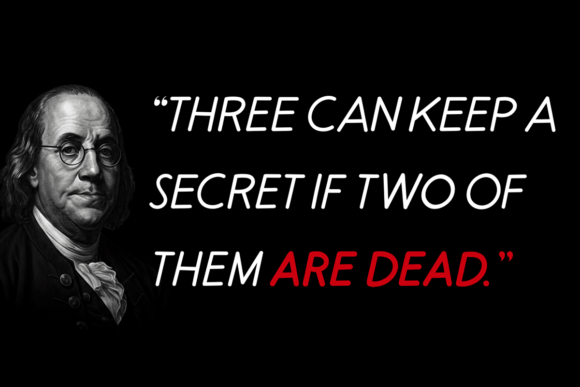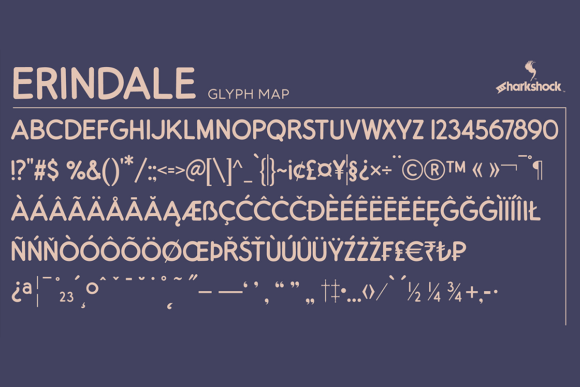
Introduction to Erindale Font
As a designer, there’s nothing quite like the thrill of bringing a creative project to life. It’s that moment when all the elements come together – the perfect balance of color, texture, and typography – that makes your design truly shine. For many of us, finding the right font can be a daunting task, but what if you could tap into a style that’s both nostalgic and timeless?
Enter the Erindale Font, a stunning all caps display family inspired by the advertisements of the 1920s and 30s. With its unique blend of order and humanistic imperfection, this high-quality font is sure to elevate your design project to new heights. Whether you’re working on a family-friendly logo, a comic, or a classic poster, Erindale Font is the perfect design resource to help you achieve your vision.
Key Features of Erindale Font
- Unique, elegant design suitable for various design applications, including logos, branding, and typography.
- Large character set with comprehensive language support, making it a versatile design resource.
- Perfect for designers and artists working on creative projects, offering a unique and stylish design element.
Honest Review: Erindale Font
I recently had the chance to try out the Erindale Font for a creative project, and I was excited to see how it would perform. Overall, I’m impressed with this free download, which is perfect for designers looking for a high-quality font at no cost.
- ✨ The Erindale Font has a clean and modern design, making it perfect for a variety of creative projects.
- ✨ The font is highly customizable, with a transparent background that makes it easy to work with.
- ⚠️ The font may not be as versatile as some other options, so you may need to experiment with different combinations to get the look you want.
Overall, I’m impressed with the Erindale Font and would definitely recommend it to designers looking for a high-quality, free download. It’s a great addition to any design resource library, and I’m excited to see how it will perform in future projects.
To get the most out of the Erindale Font, use it on a transparent background to create a clean and modern design. Experiment with different font sizes and styles to add depth and interest to your project. The Erindale Font is a high quality design resource that can be used for a wide range of creative projects.
The Erindale Font is commonly used for logos, graphics, and typography in creative projects. It is also used for presentations, reports, and other business materials. The font’s modern and sleek design makes it a popular choice for designers and non-designers alike.